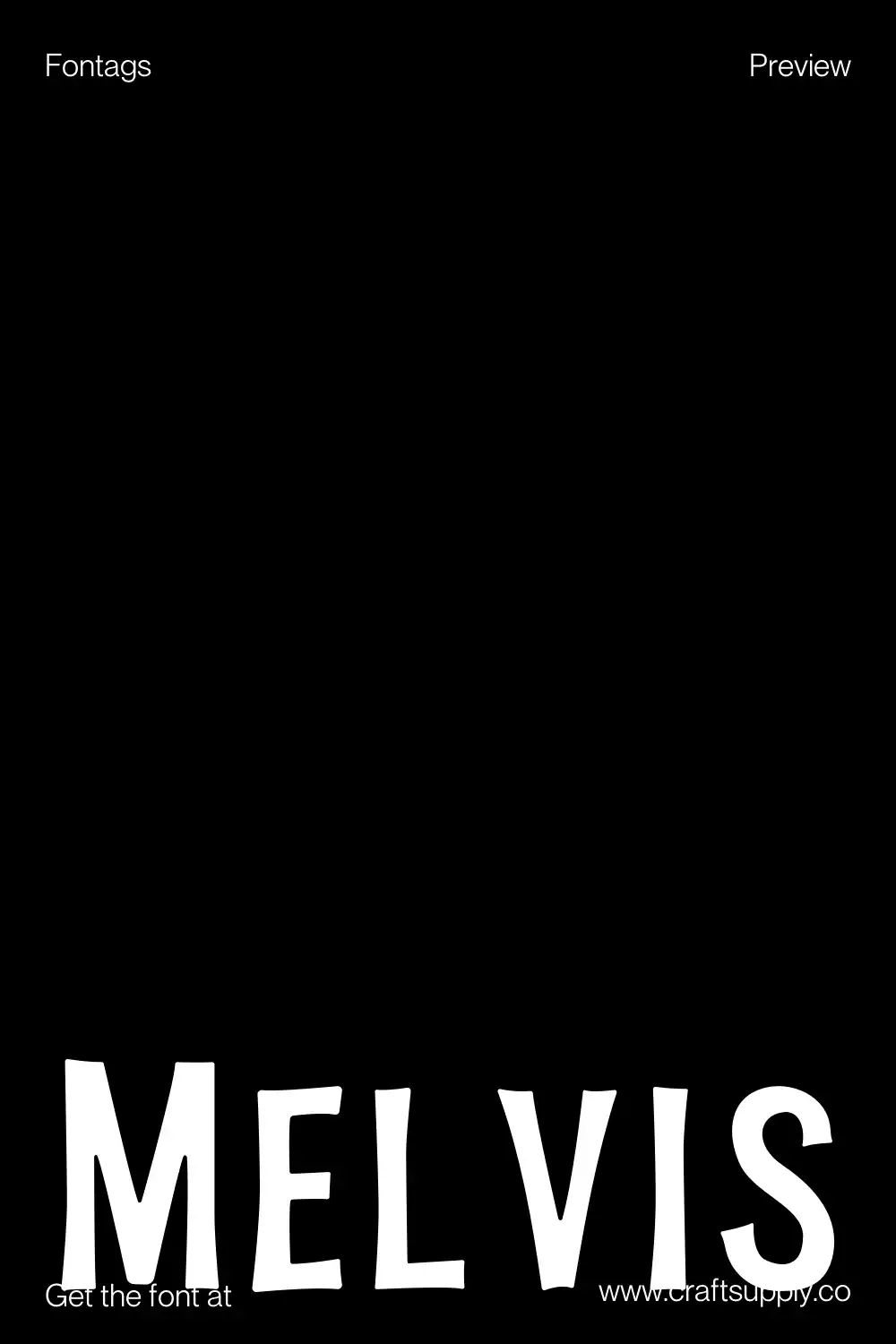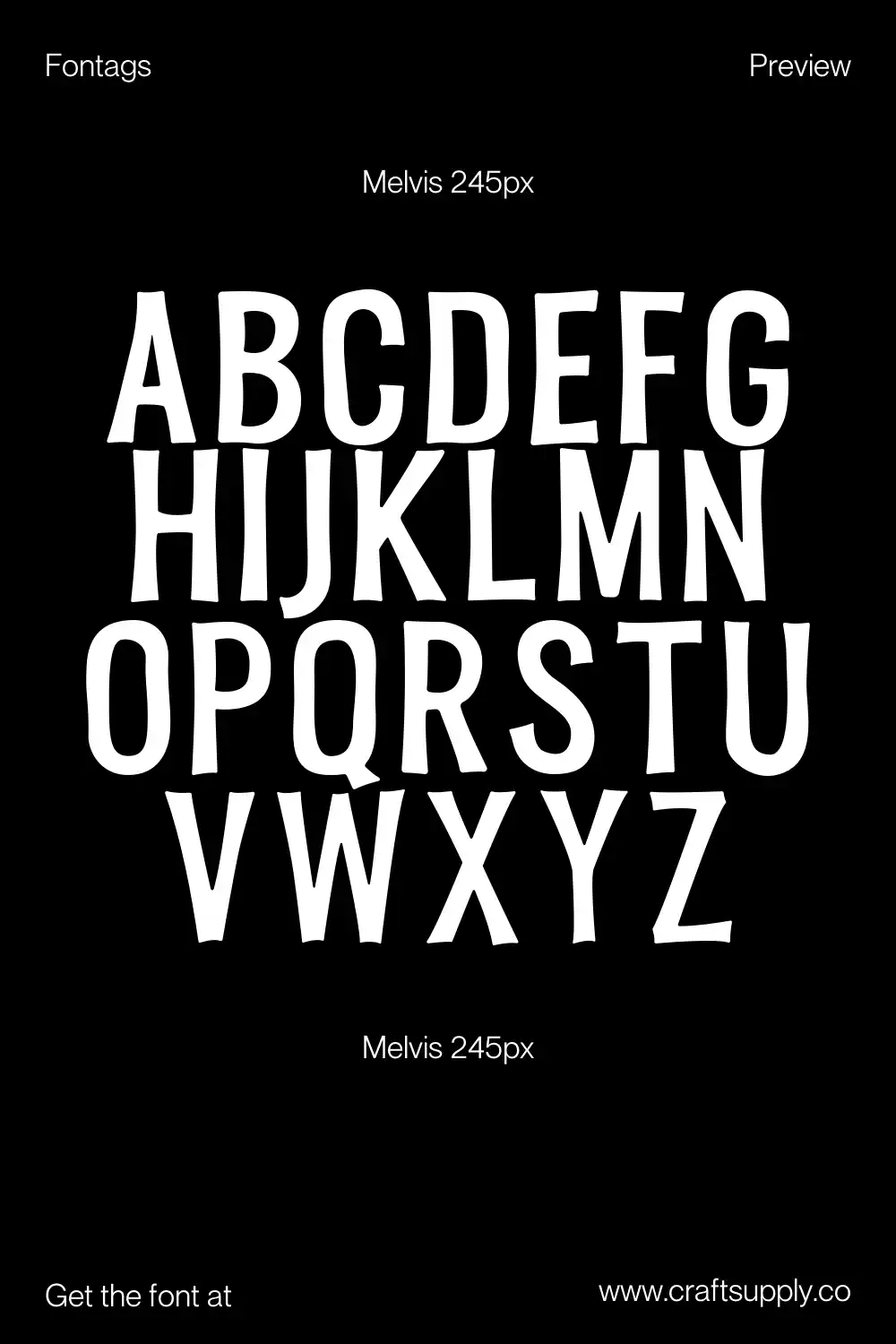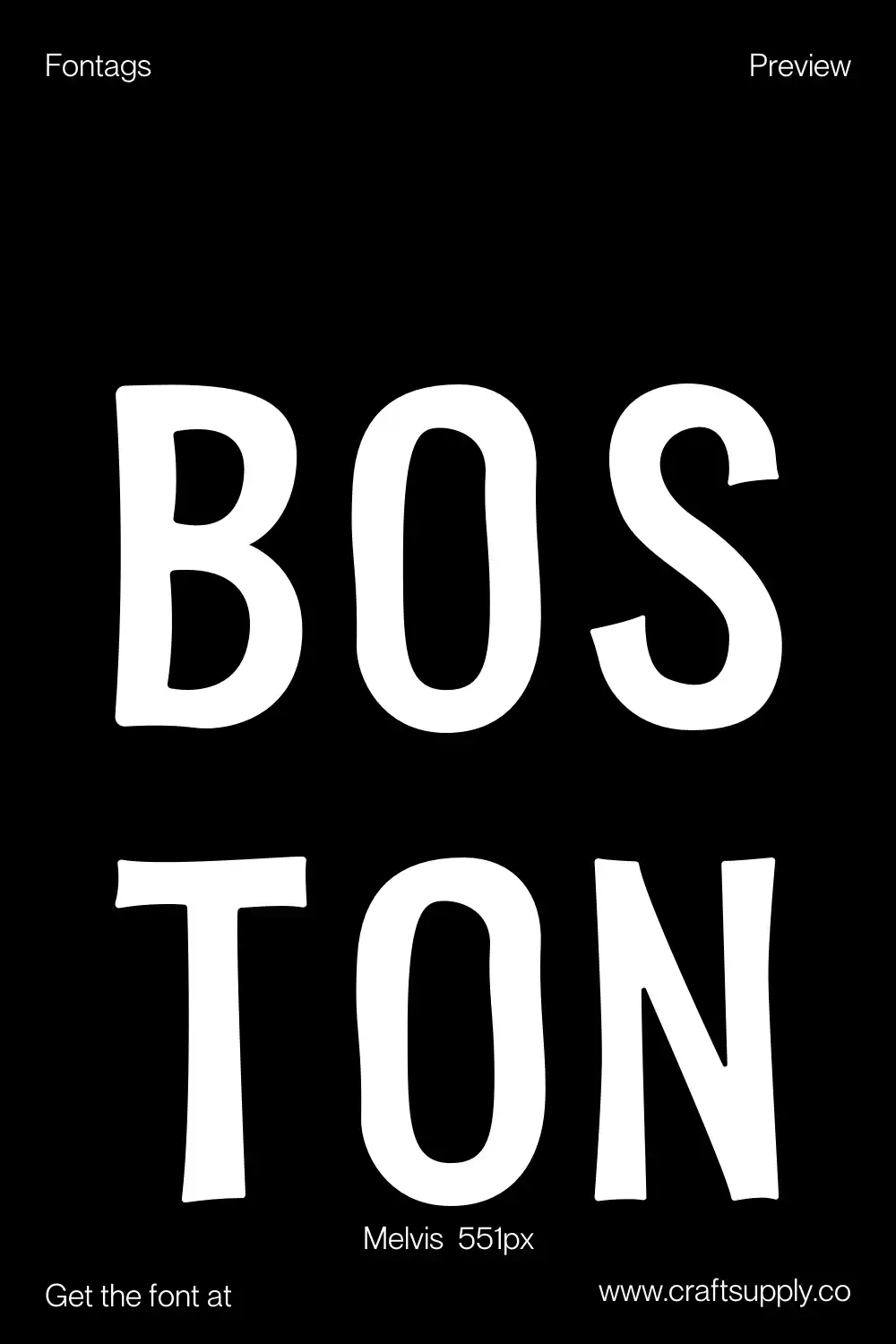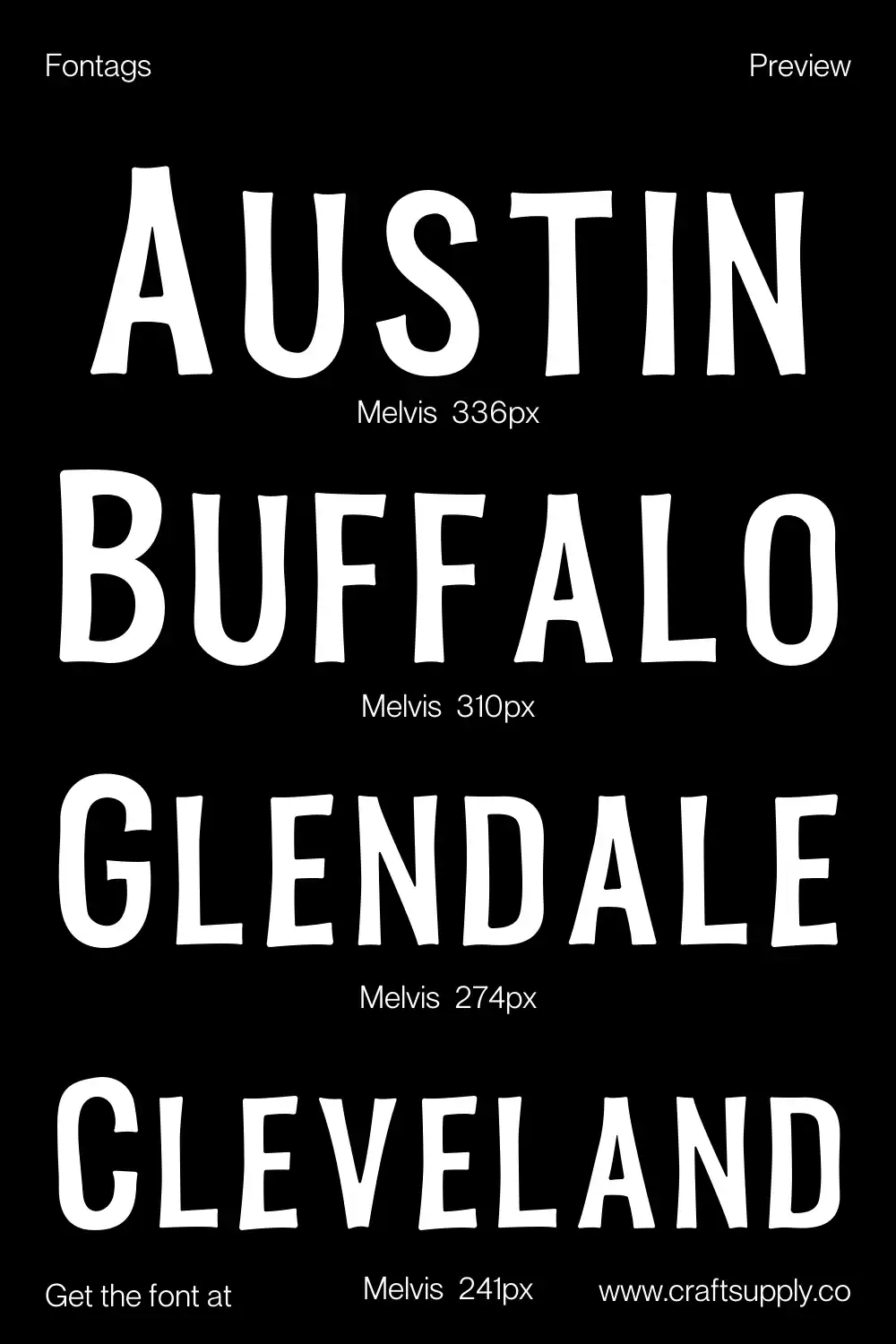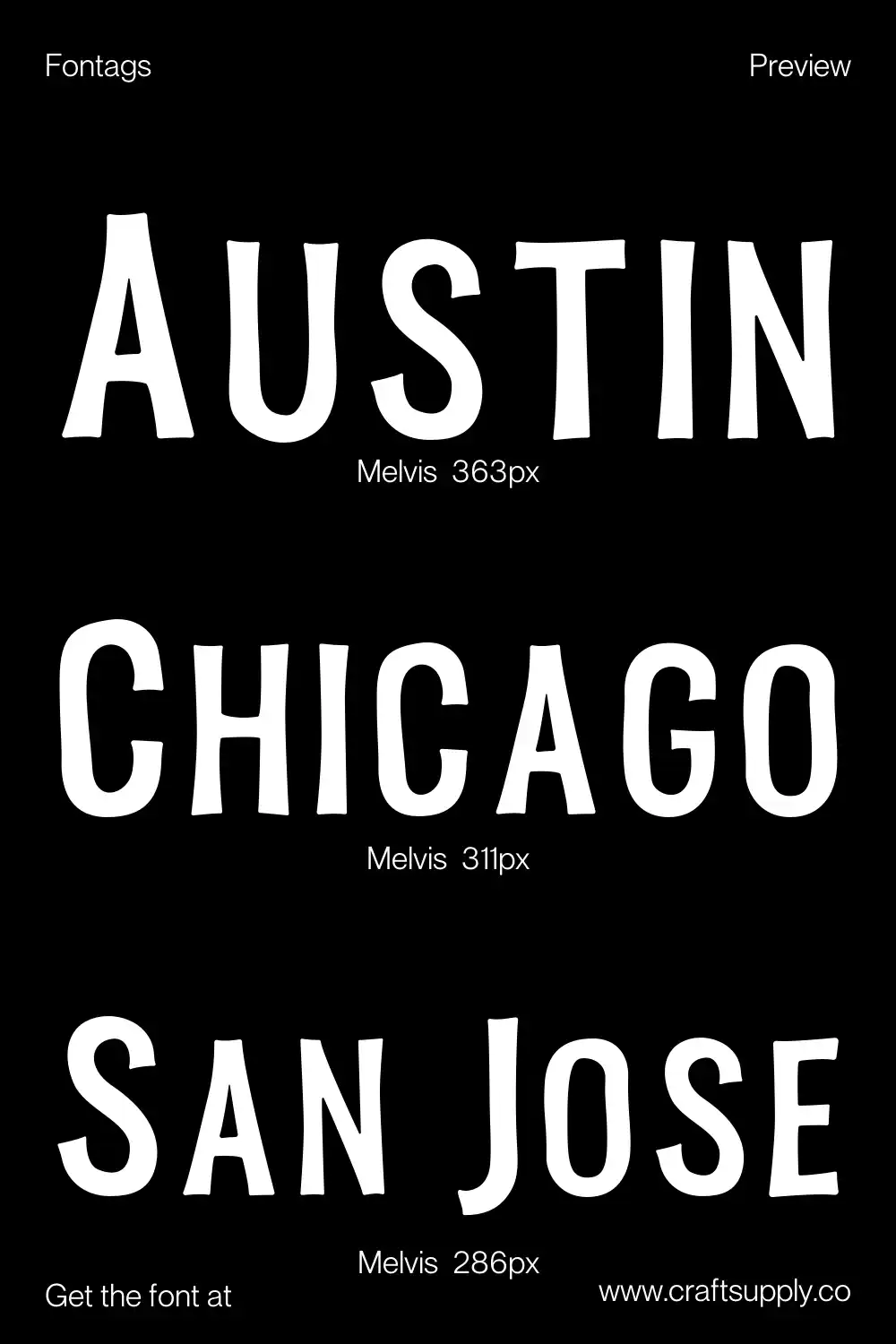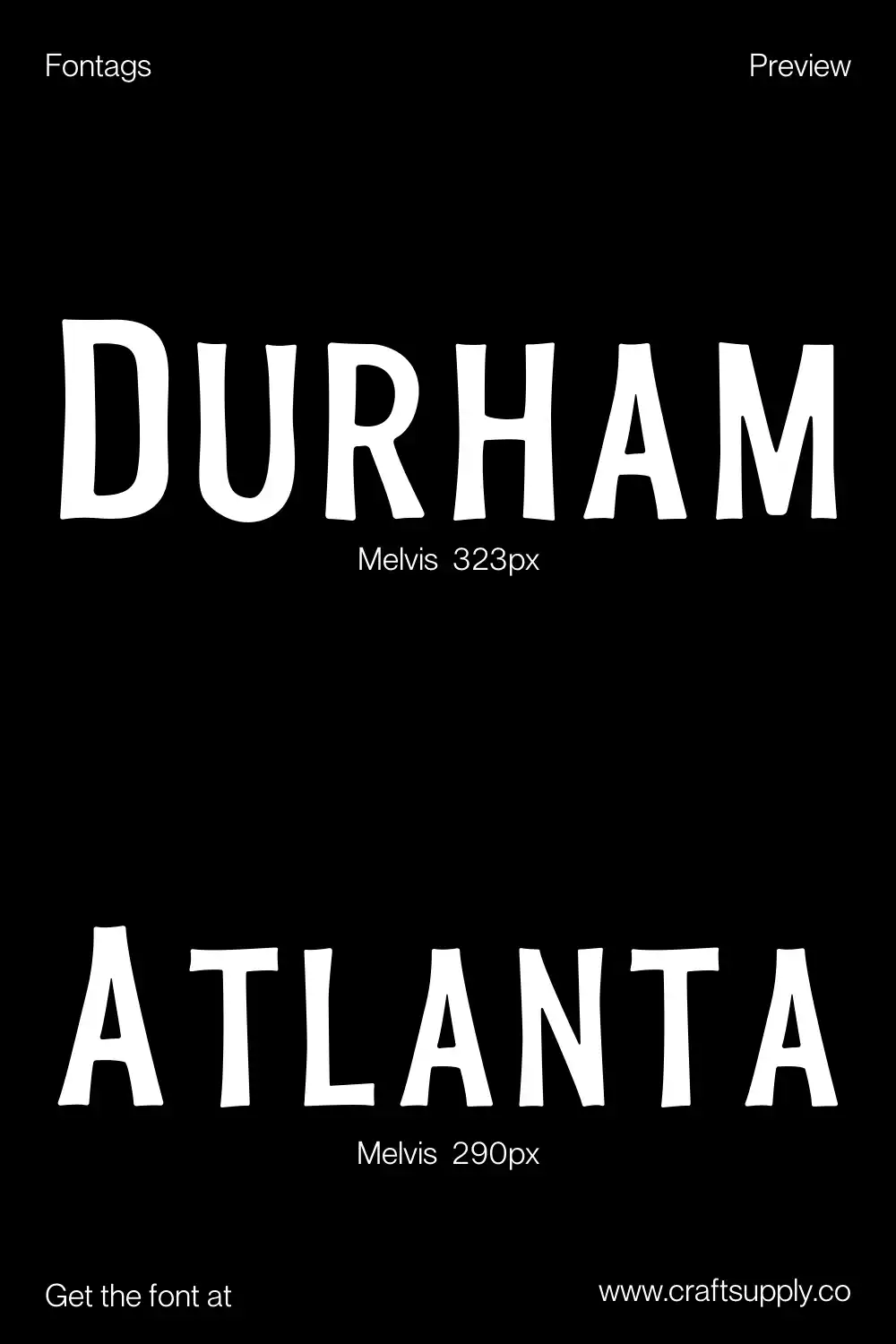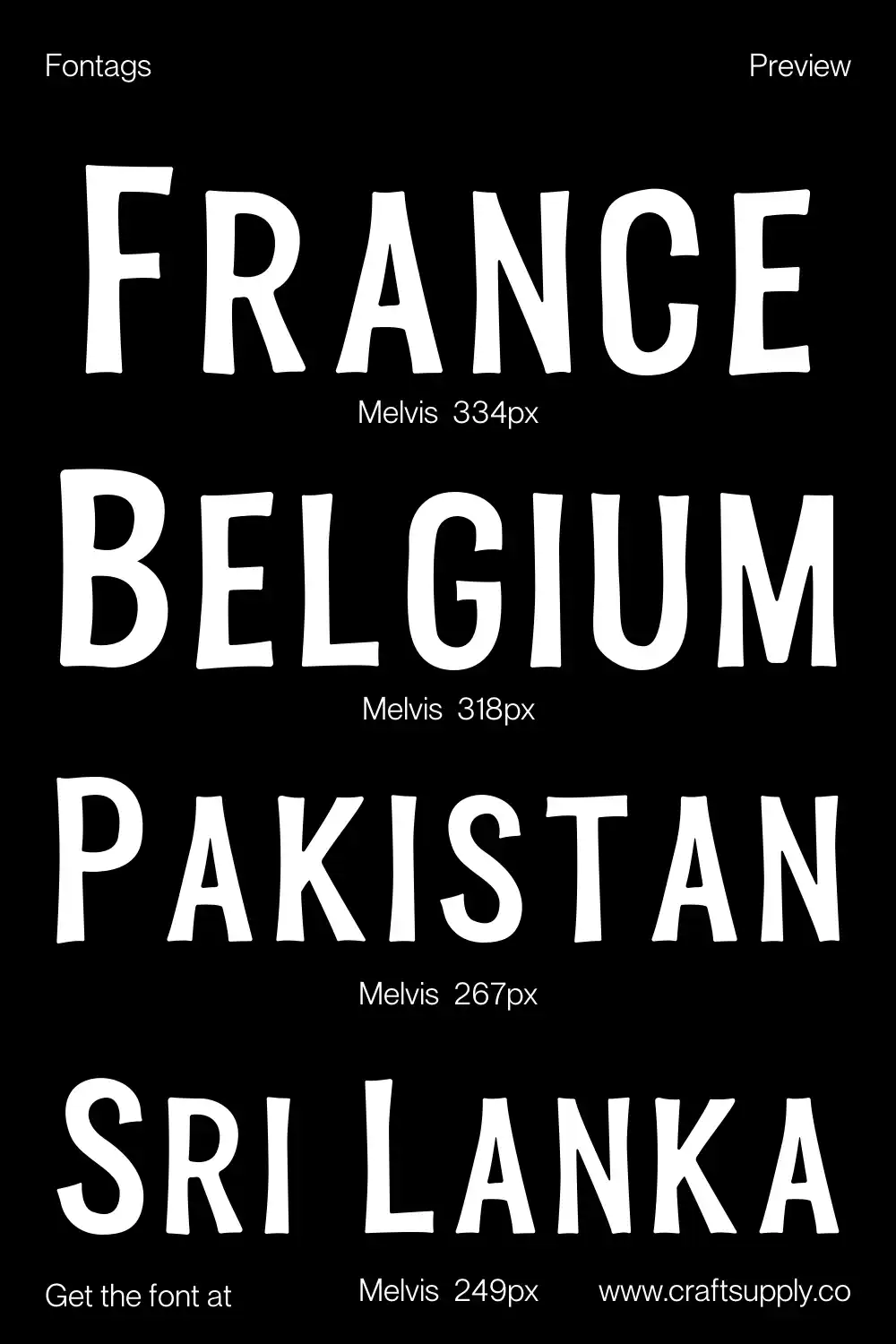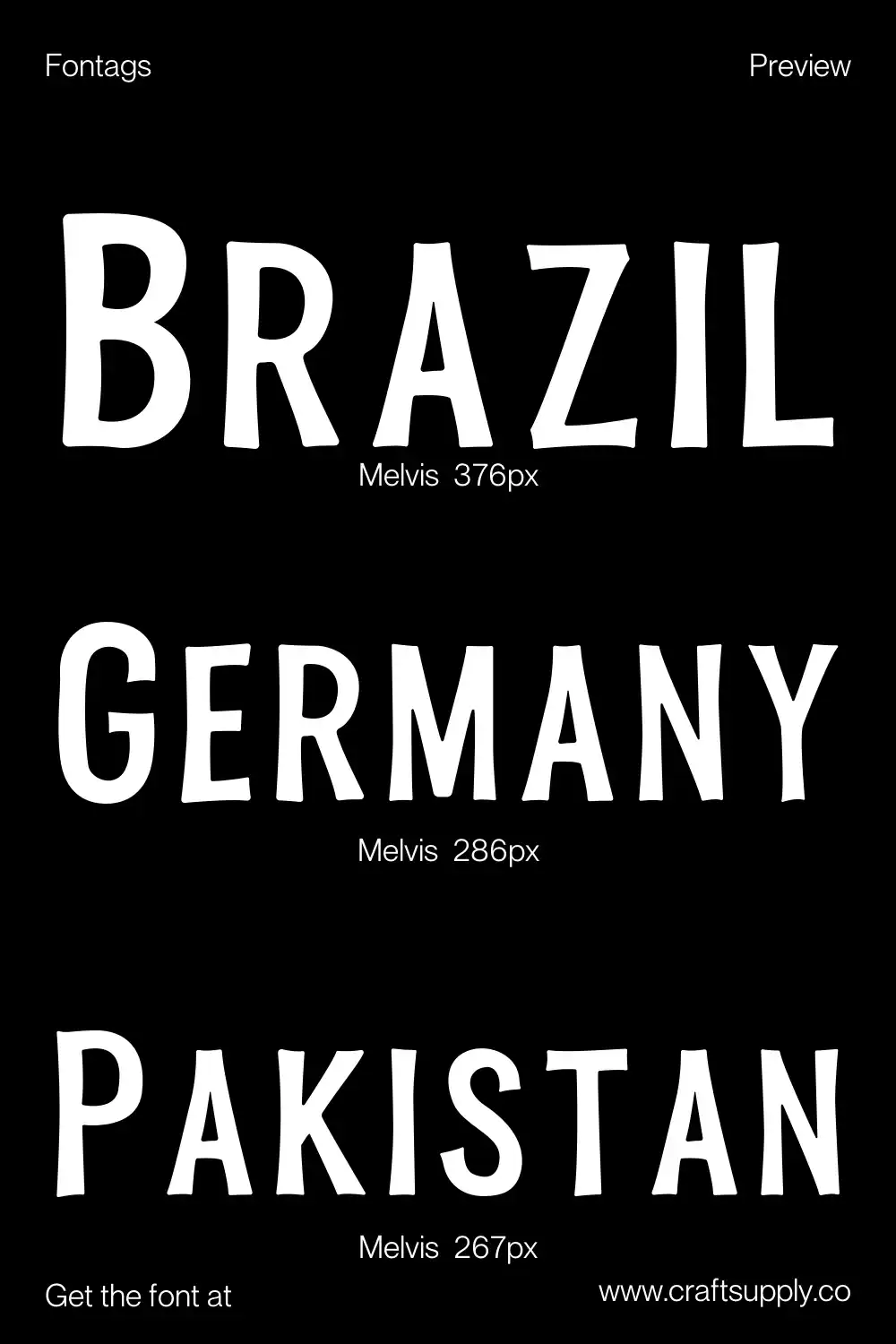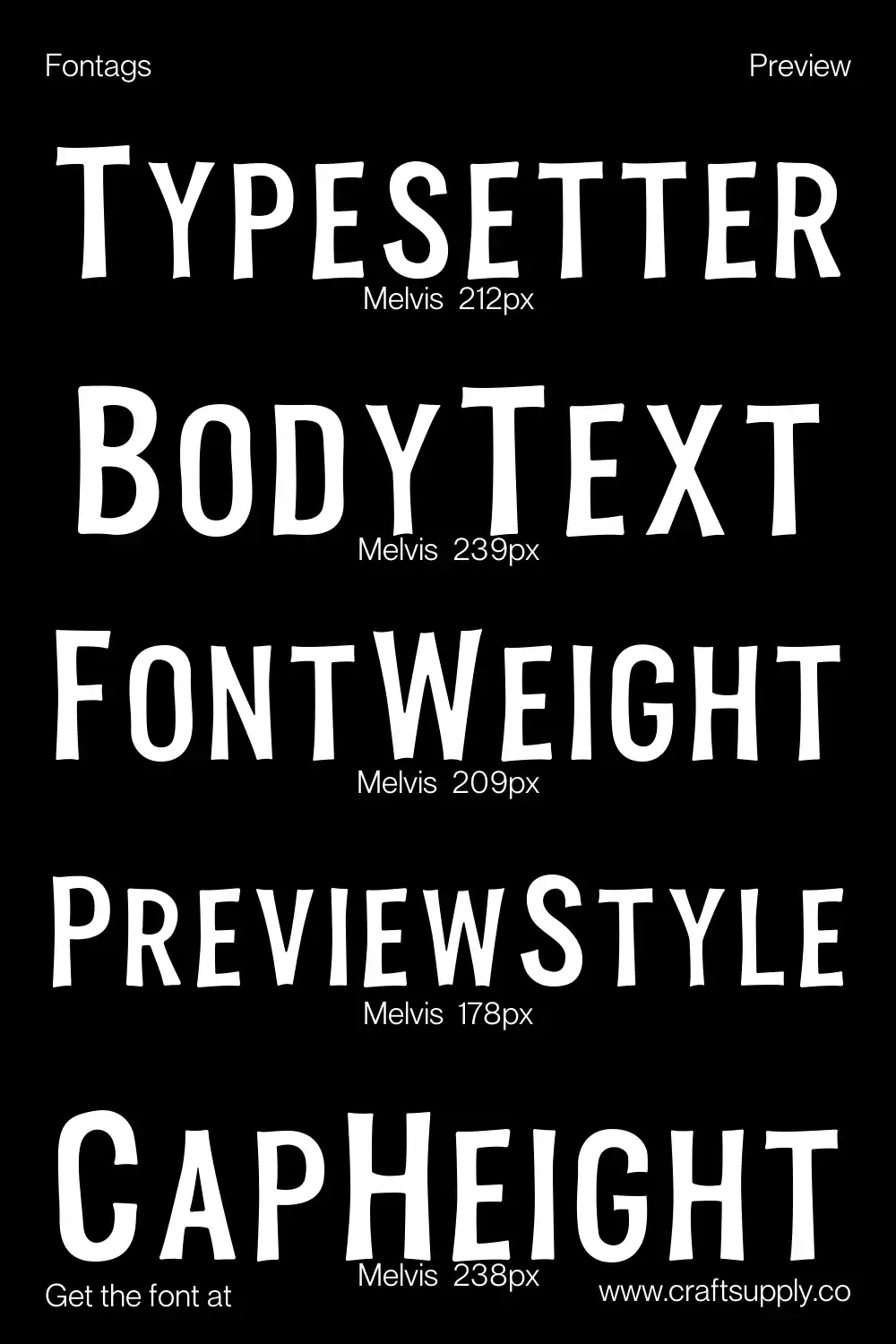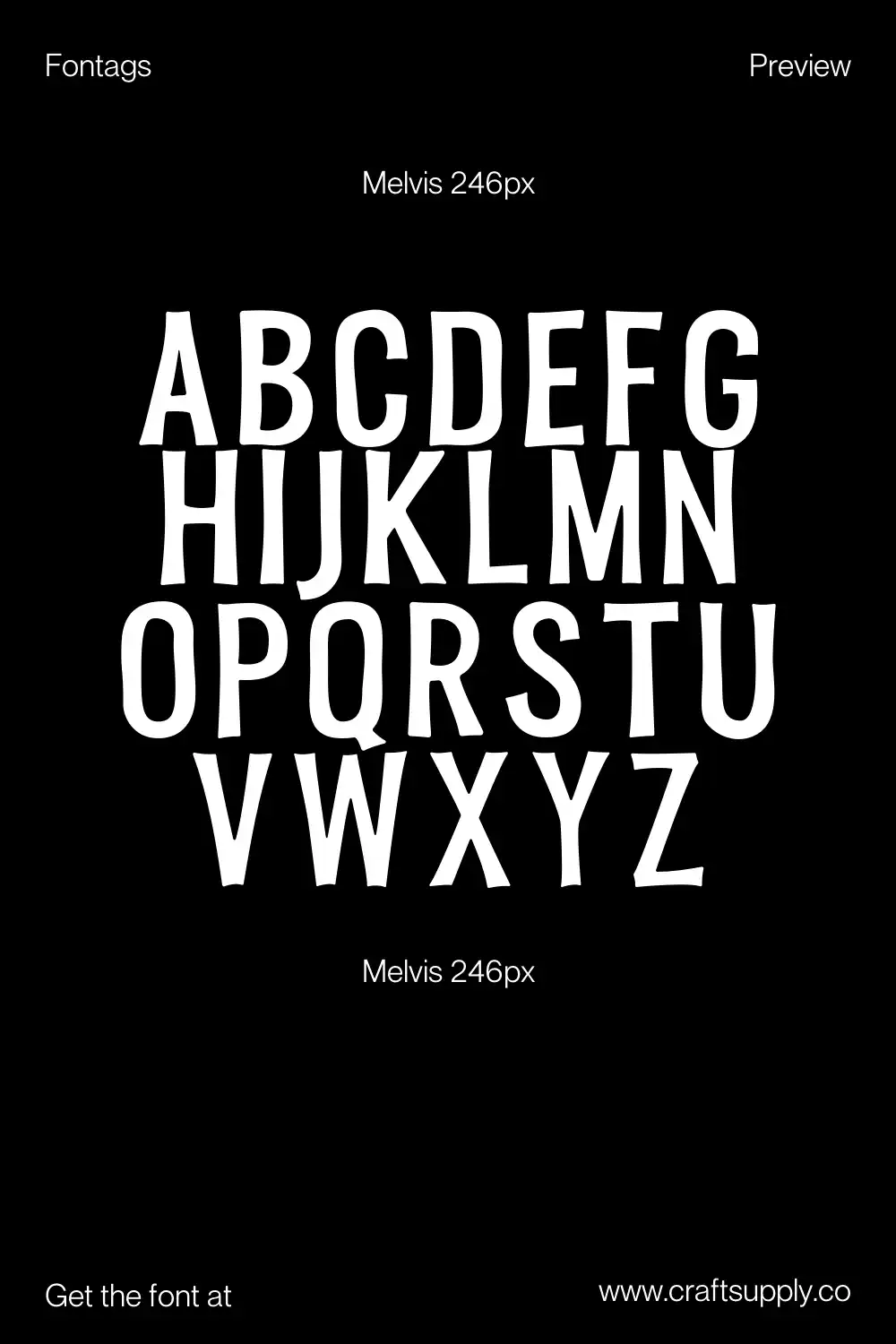
Melvis – Vintage Font Family + Extras includes 5 Style Fonts. It can be used to create almost all types of design projects like print materials. Just use your imagination and some graphic design set in Extras, your project will become more alive and look great than ever with one of the Melvis Font.